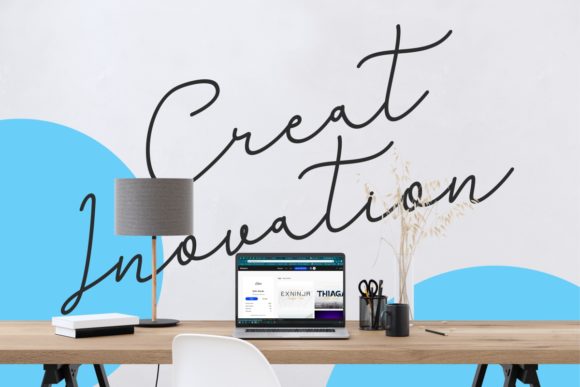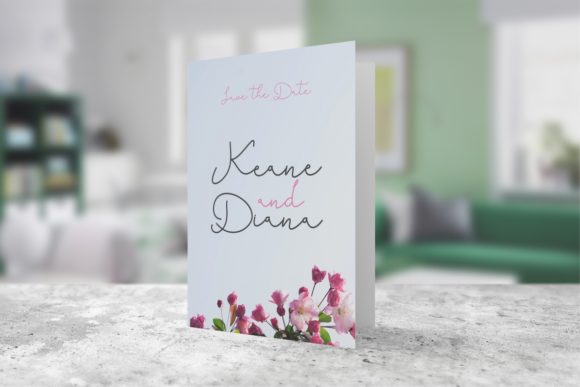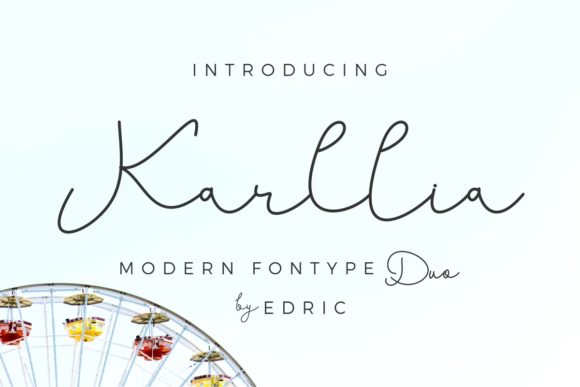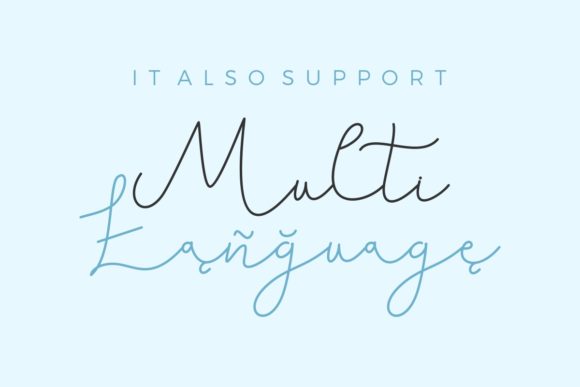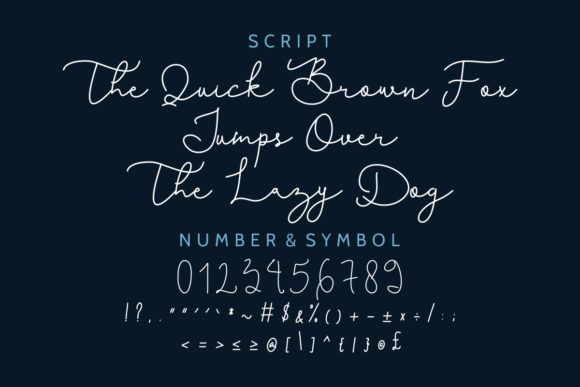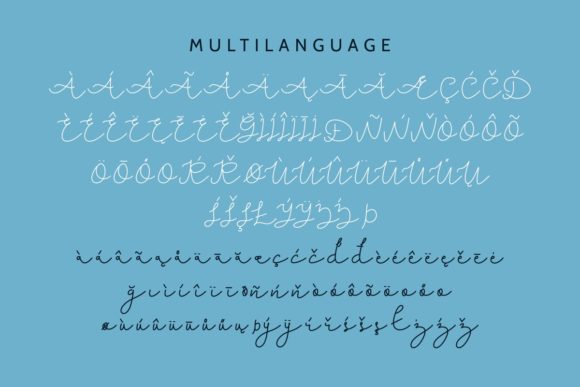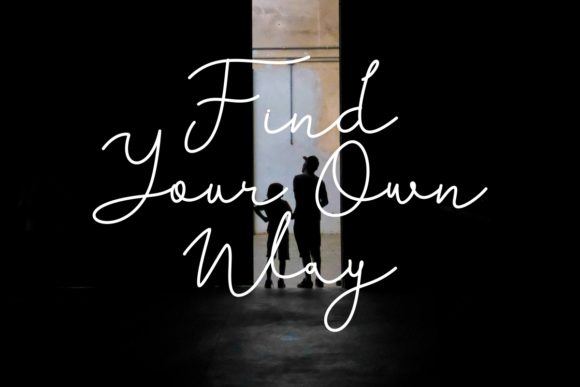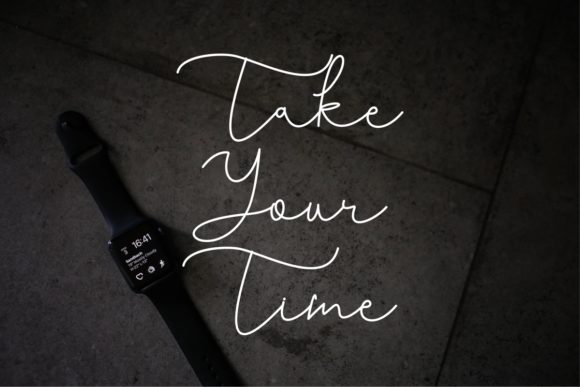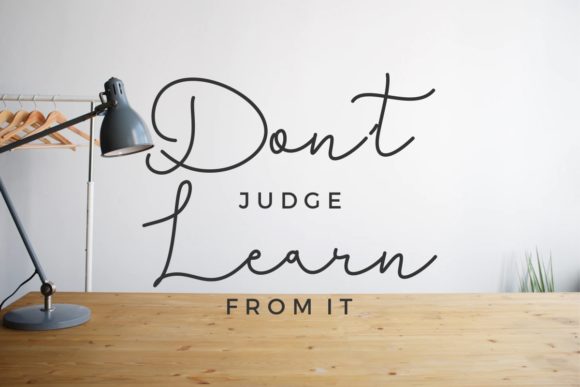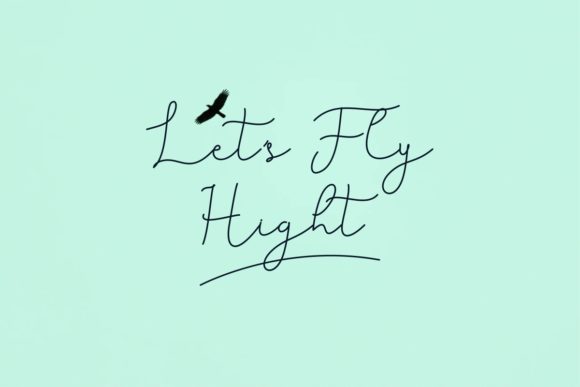
HomeScript FontsKarllia Font Script Fonts Karllia Font FacebookXPinterestWhatsApp Karllia Font Poster 2 Karllia Font Poster 3 Karllia Font Poster 4 Karllia Font Poster 5 Karllia Font Poster 6 Karllia Font Poster 7 Karllia Font Poster 8 Karllia Font Poster 9 Karllia Font Poster 10 Karllia Font Poster 11 About Karllia Font Karllia is a sweet and simple script, delivering a modern approach to elegance. DOWNLOAD ON CREATIVE FABRICAThis font is sold and delivered by Creative Fabrica. Font Canyon may earn a commission if you buy through this link. People also explored Ragster Font Hapy Lowen Font Syarena Font Winter Signature Font Southern California Font Lovely Lailla Font Rock Out! Slandia Font Font Strangeways Font 345 0 TagsKarllia Font Previous articleMarioline Barnard FontNext articleErfana Font LEAVE A REPLY Cancel reply Comment: Please enter your comment! Name:* Please enter your name here Email:* You have entered an incorrect email address! Please enter your email address here Website: Save my name, email, and website in this browser for the next time I comment. Personal Use Free Ayam Bakar Personal Use Free Read more about this font Predators Personal Use Free Read more about this font The Brighton Personal Use Free Read more about this font Multicolore Personal Use Free Read more about this font BLOG Free vs Paid Fonts: Why Investing in Premium Fonts Is Worth It Free vs Paid Fonts: Why Premium Fonts Are Worth It in 2025 The debate of free vs paid fonts continues in the design world. While... Top 7 Google Fonts Alternatives for Faster and Privacy-Friendly Web Design (2025) Exploring Font Trends Elegant Wedding Invitation Fonts – Handwritten & Script Fonts